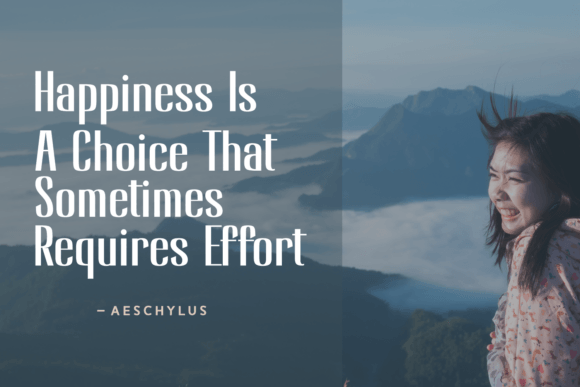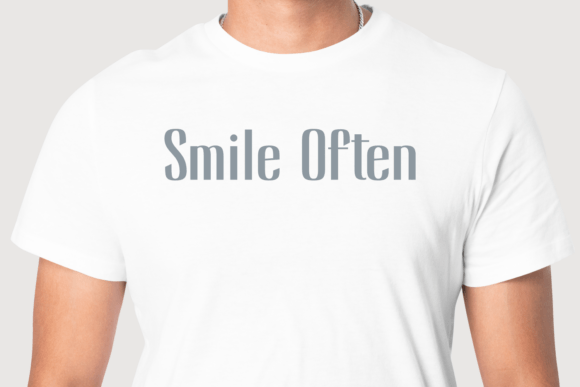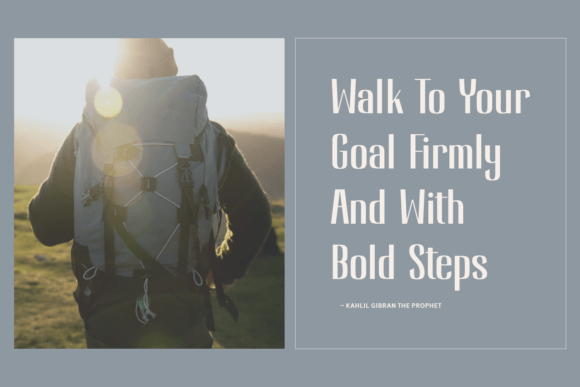
Introduction to Happy Hills Font
Happy Hills is a modern, sans-serif font with a cheerful and approachable design.
Its smooth curves and clean lines evoke a sense of warmth and positivity, making it perfect for branding, invitations, and playful designs Versatile and stylish, it adds charm to any project.